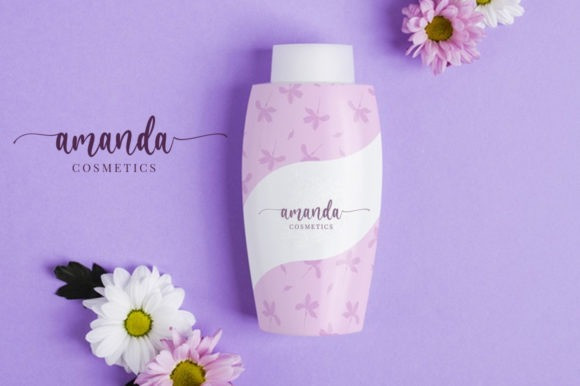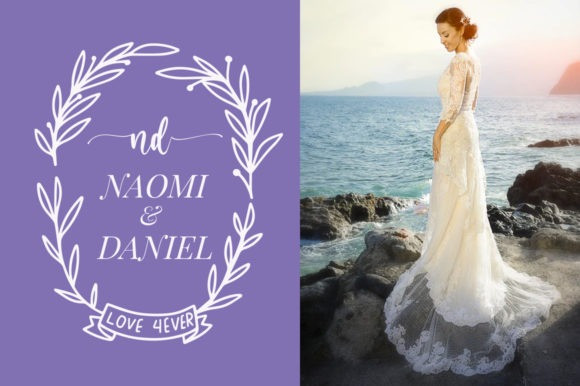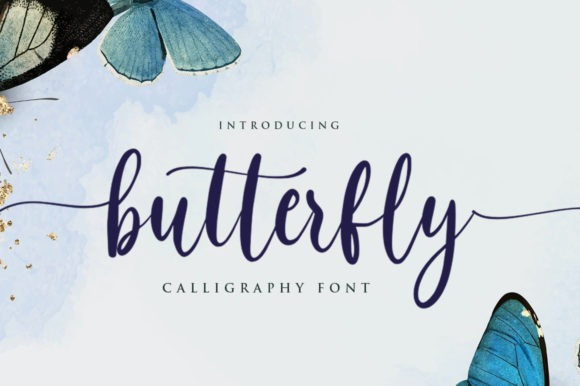
Delvina Calligraphy Font
Delvina is a flowing handwritten font, described by an elegant touch, perfect for your favorite projects. Fall in love with its incredibly distinct and timeless style and use it to create spectacular designs.